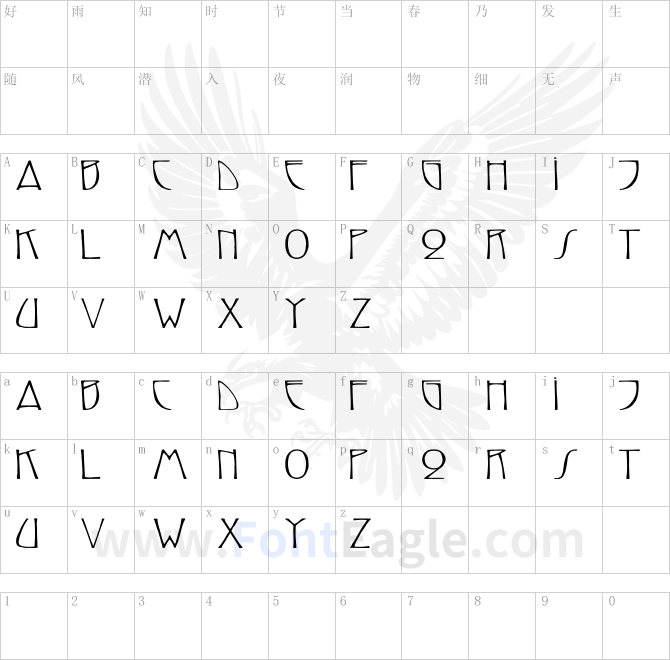
- Font name:ReynoldCaps Ex
- Font Subfamily ID:ReynoldCaps Ex Regular:
- Font Full Name:ReynoldCaps Ex
- Postscript:ReynoldCapsEx
- Font Copyright:Reynolds Caps © 1990 by David Rakowski. Alle Rechte Vorhalten.